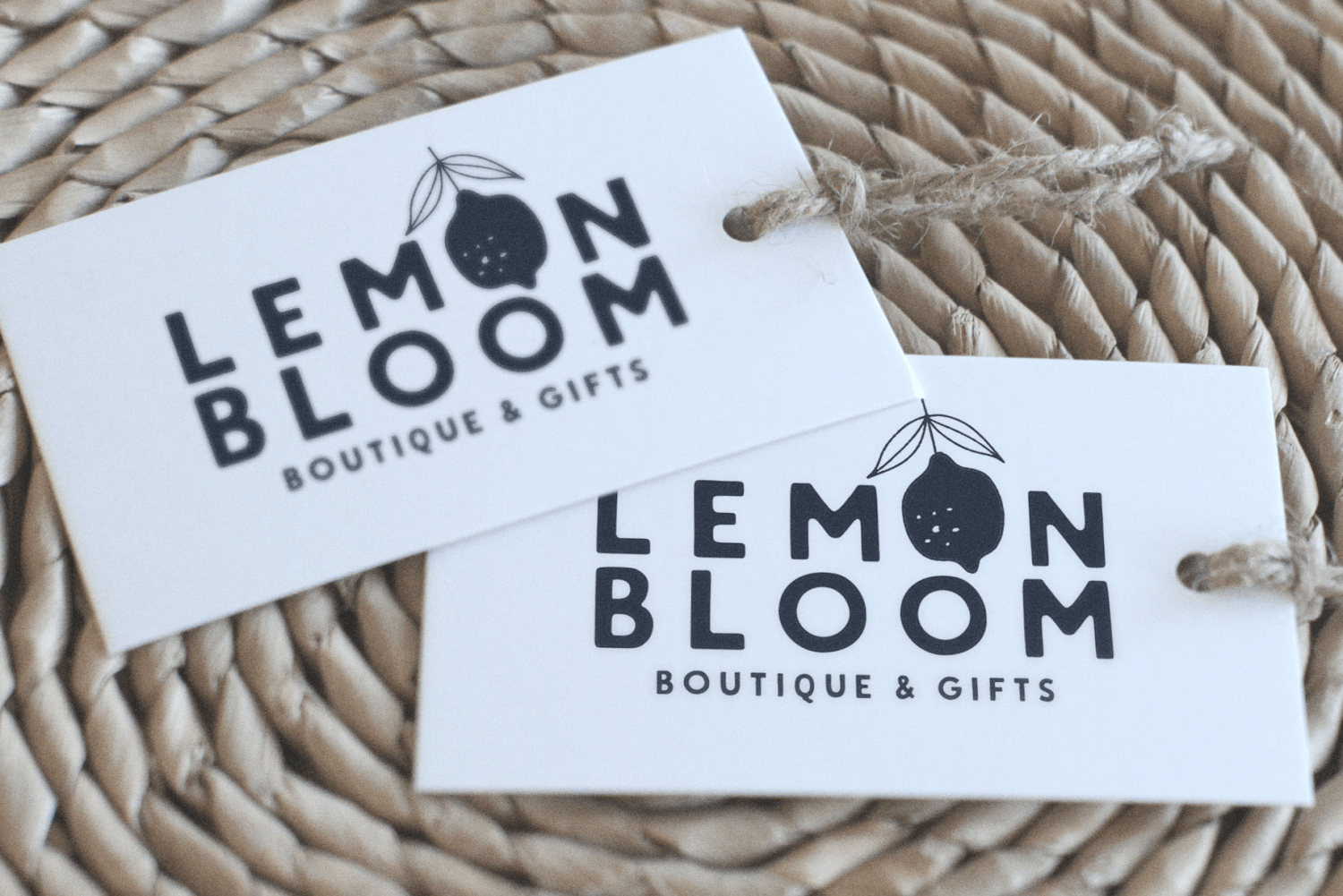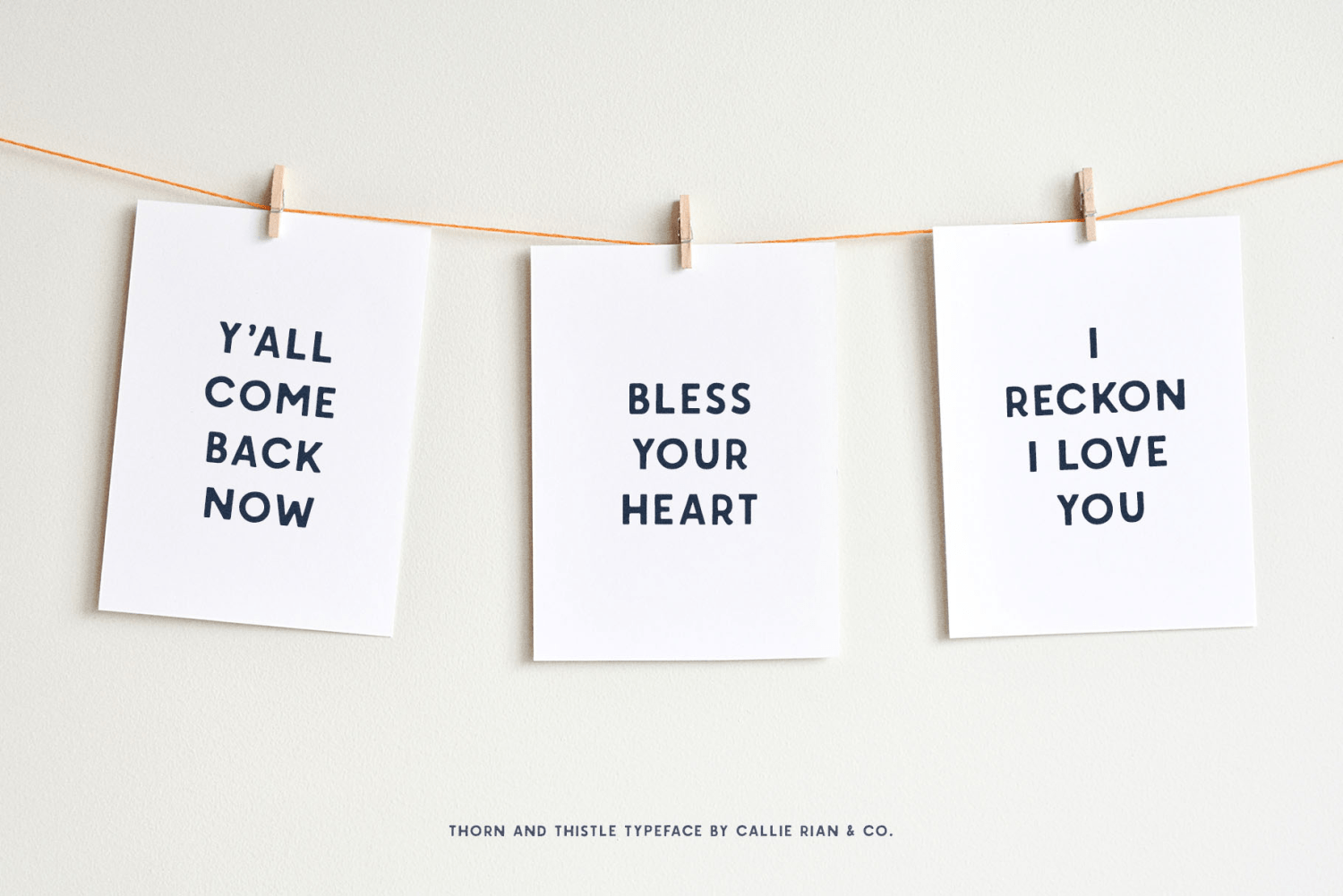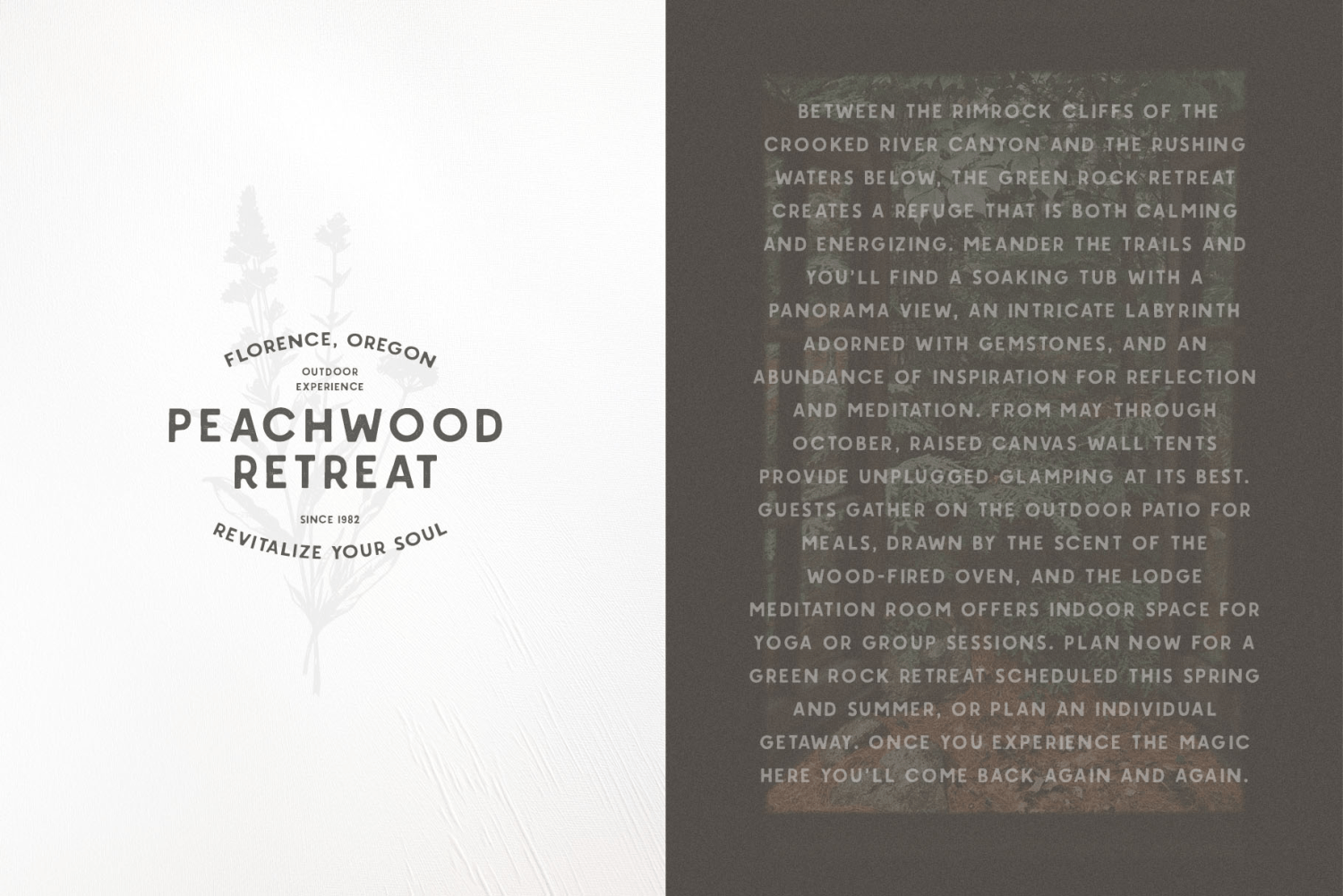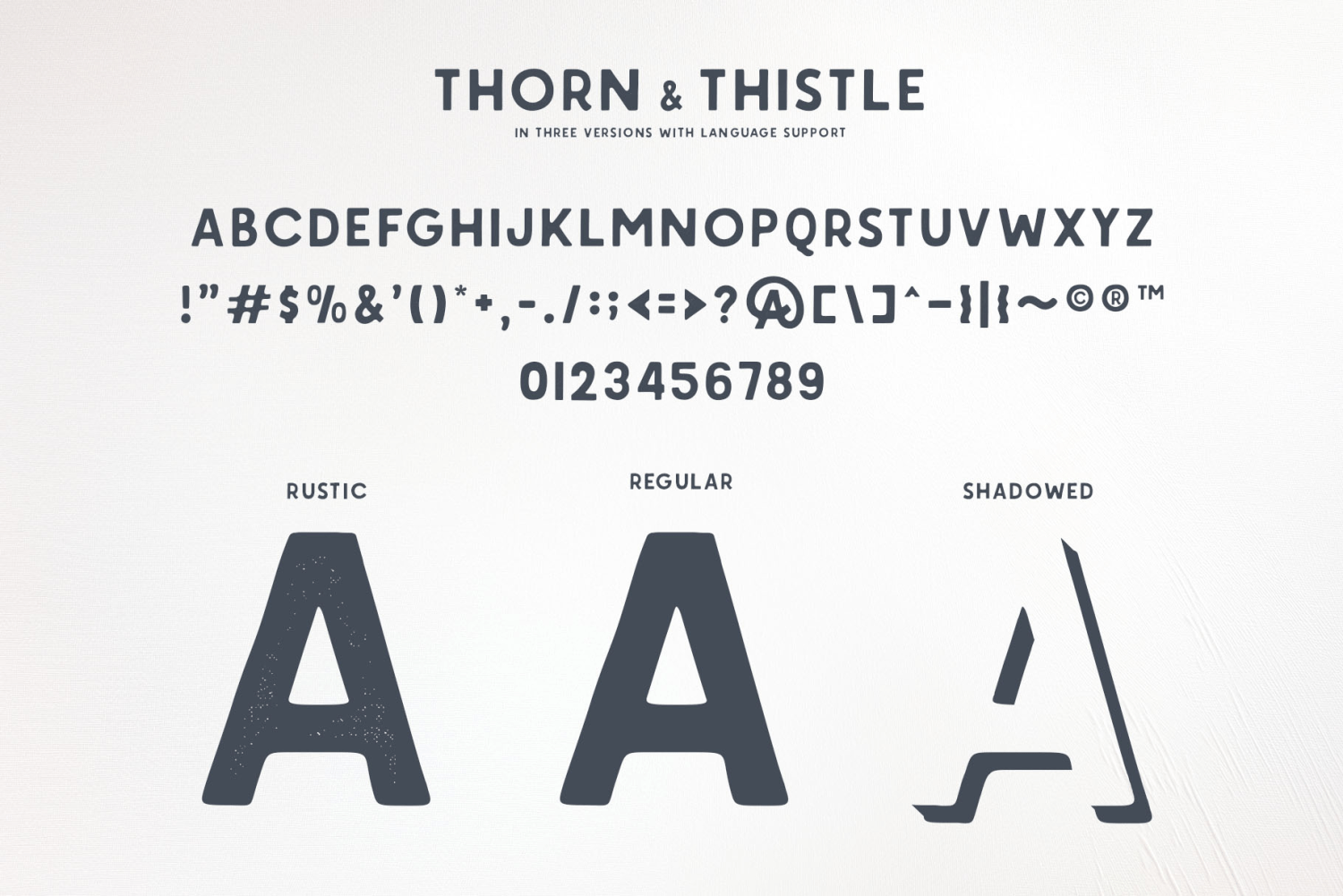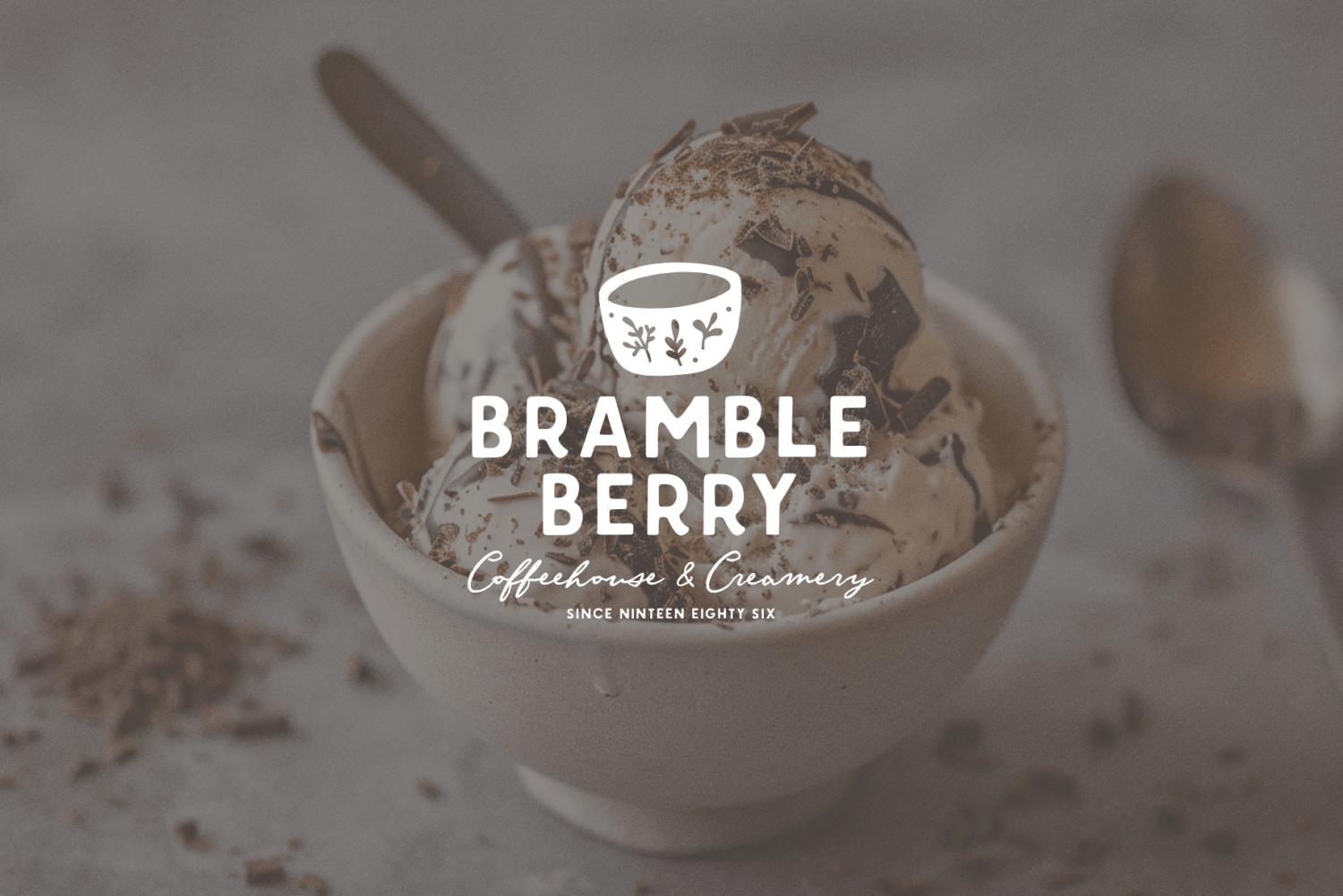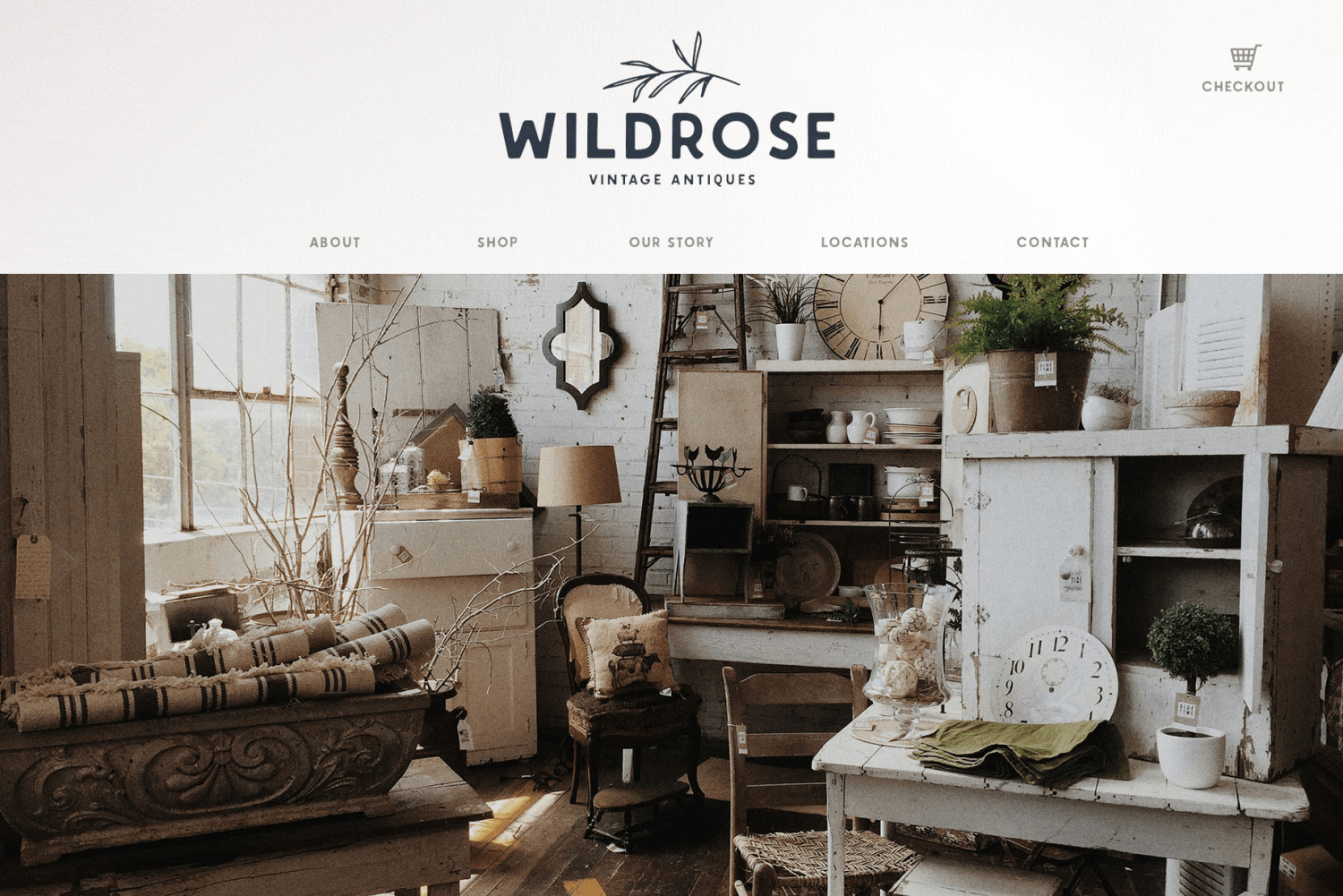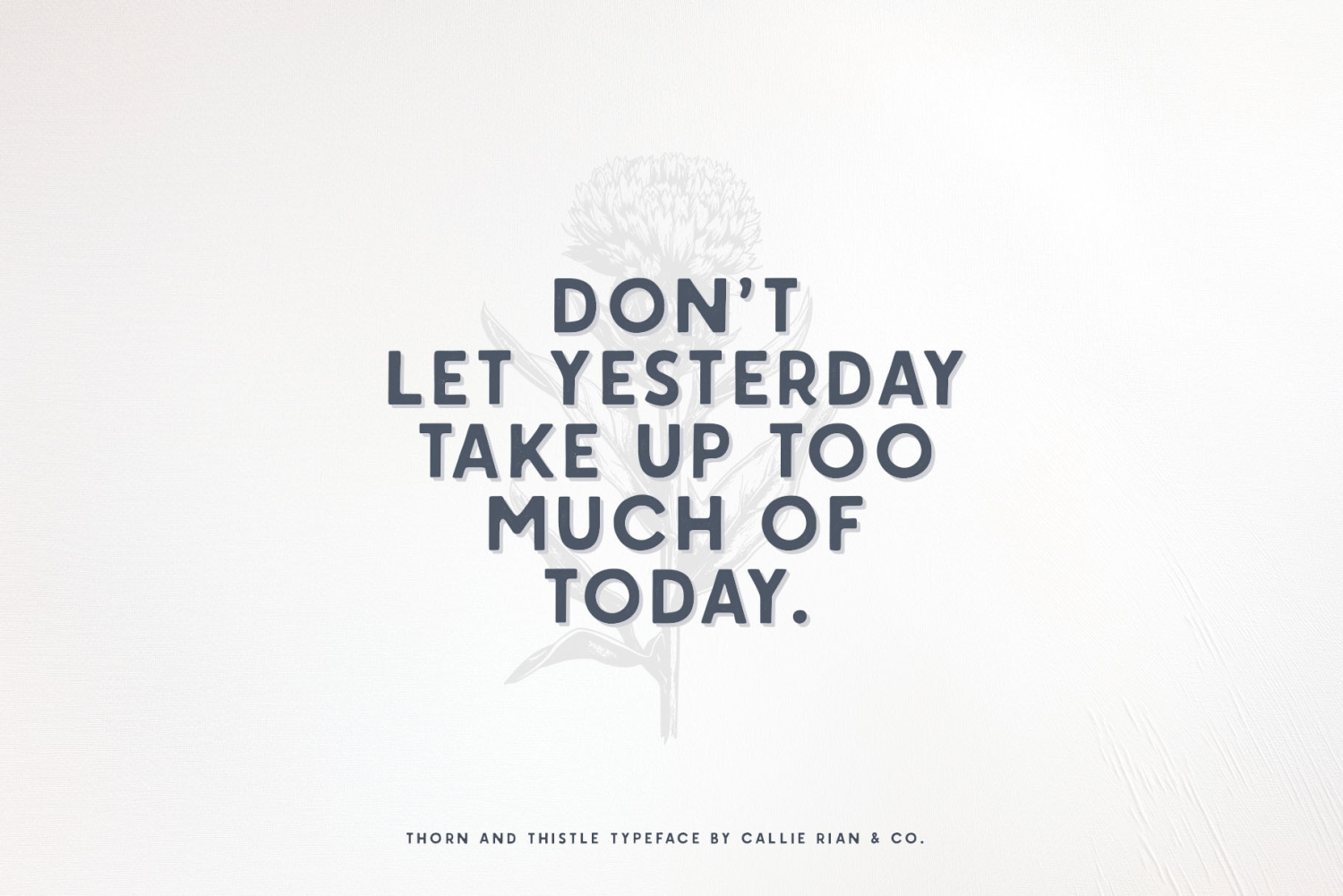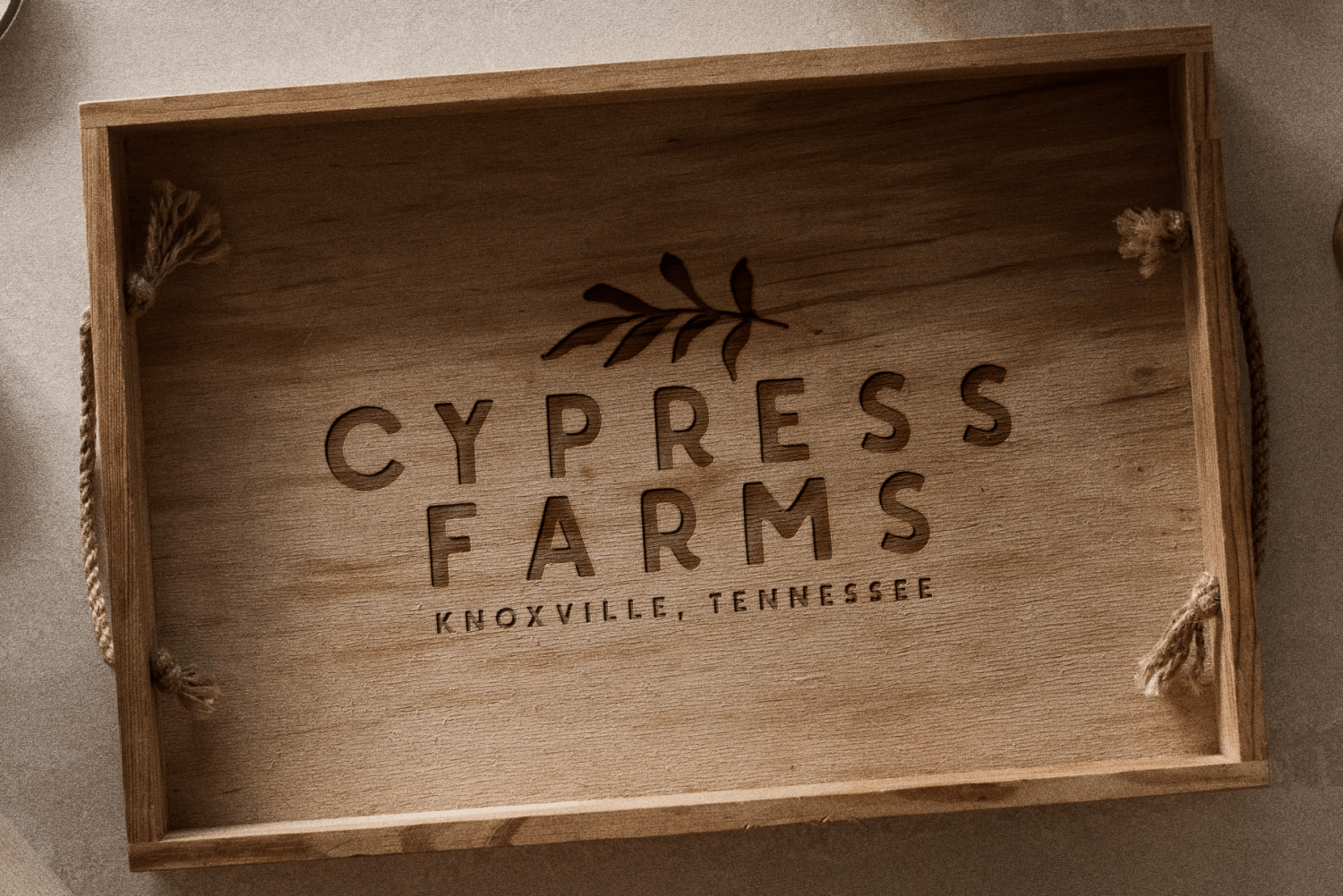
Thorn & Thistle Sans
About Thorn & Thistle Sans
Introducing Thorn & Thistle, a hand-drawn Sans Serif family with subtlety-inked corners in 3 versions: regular, rustic, and shadowed. Thorn & Thistle is the trendy, classic beauty you need on magazines, headlines, logos, packaging, quotes and…